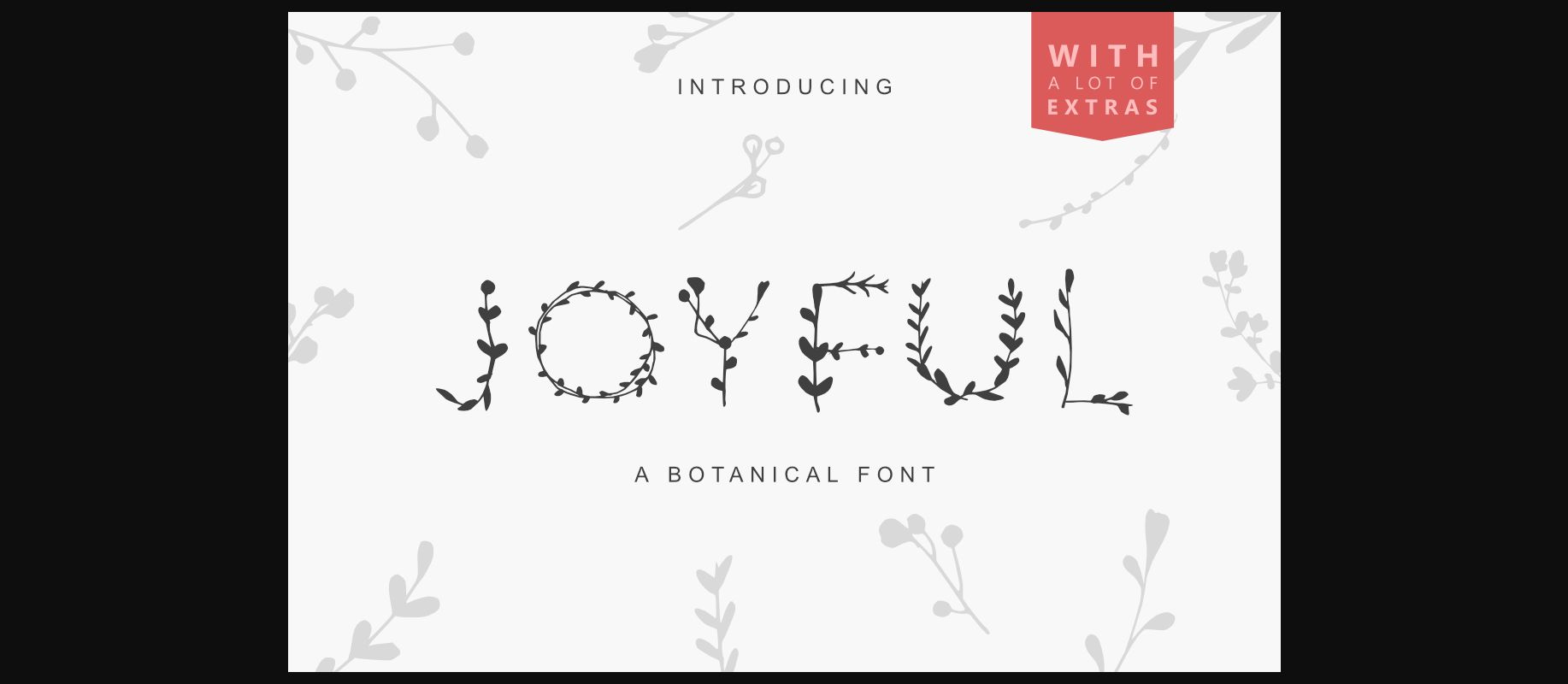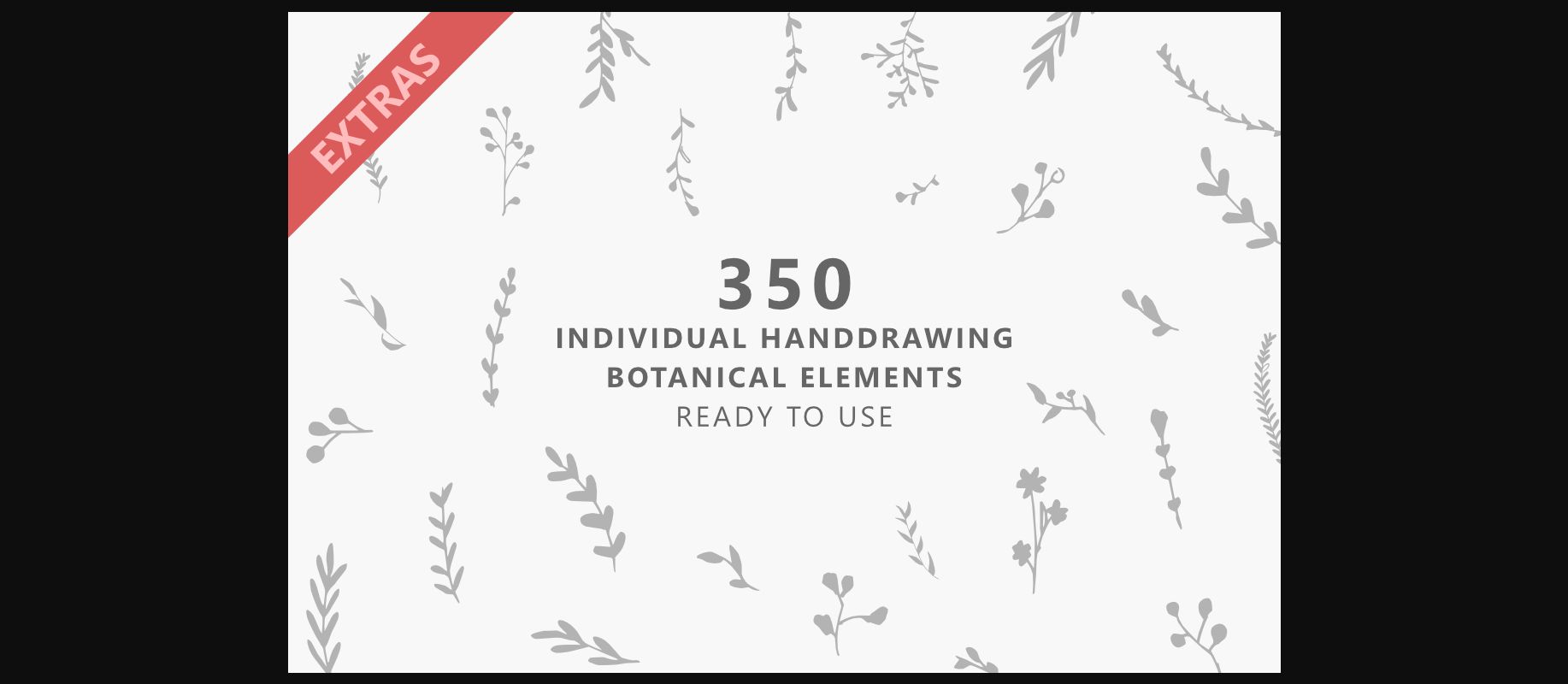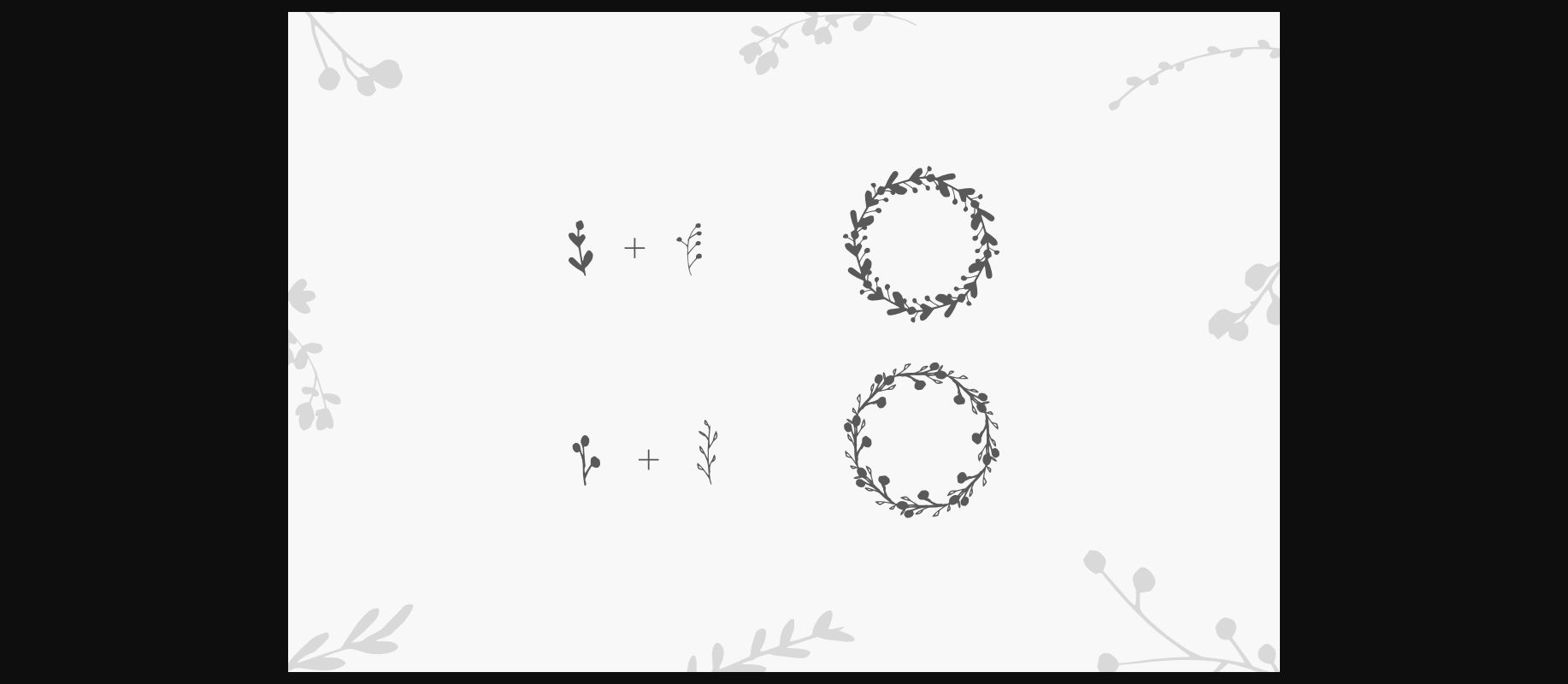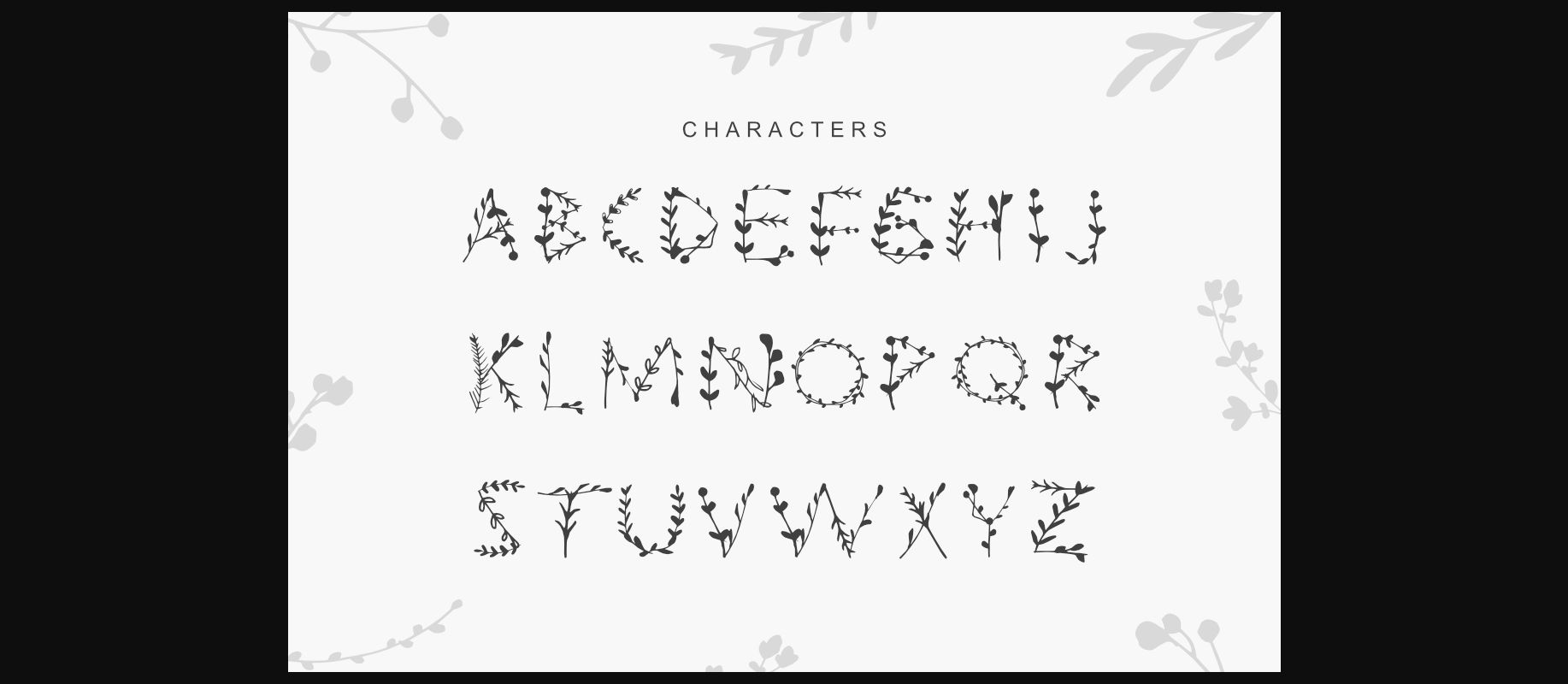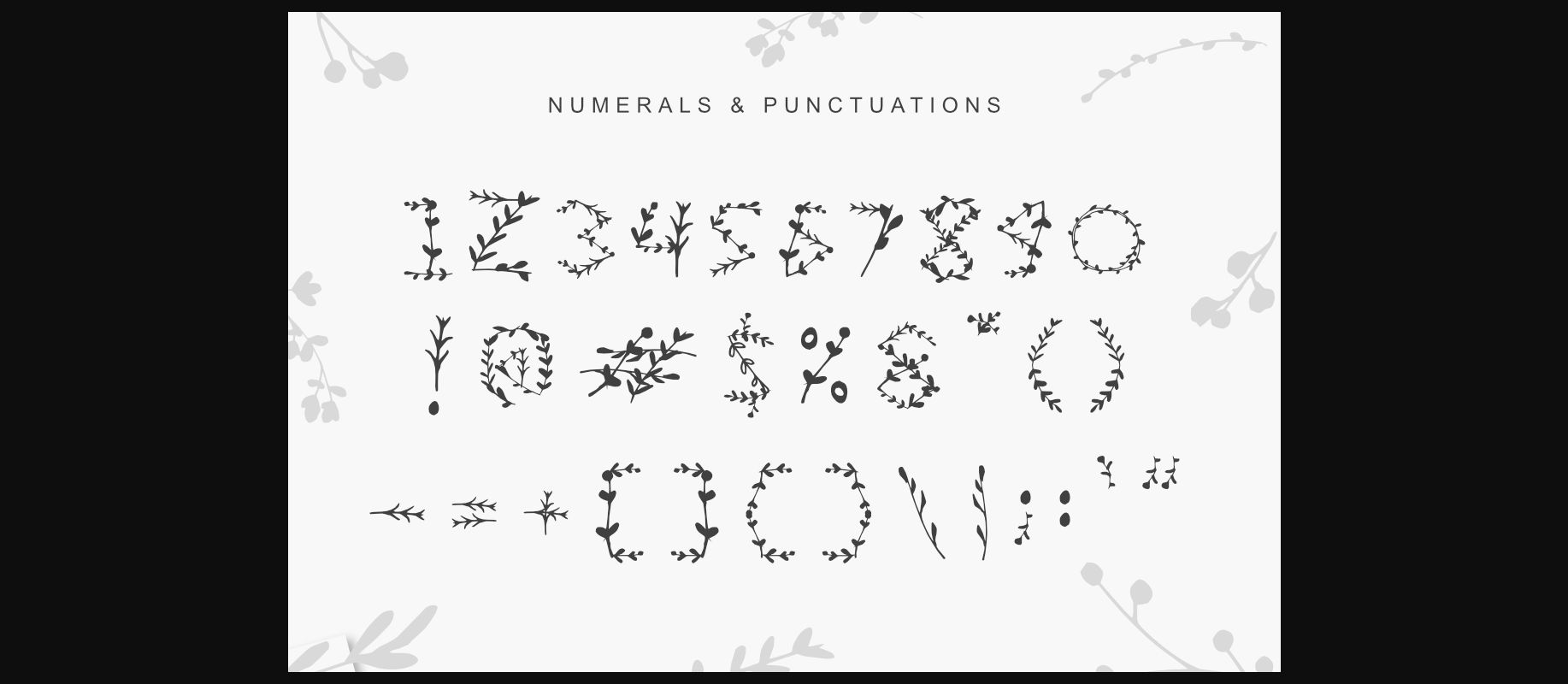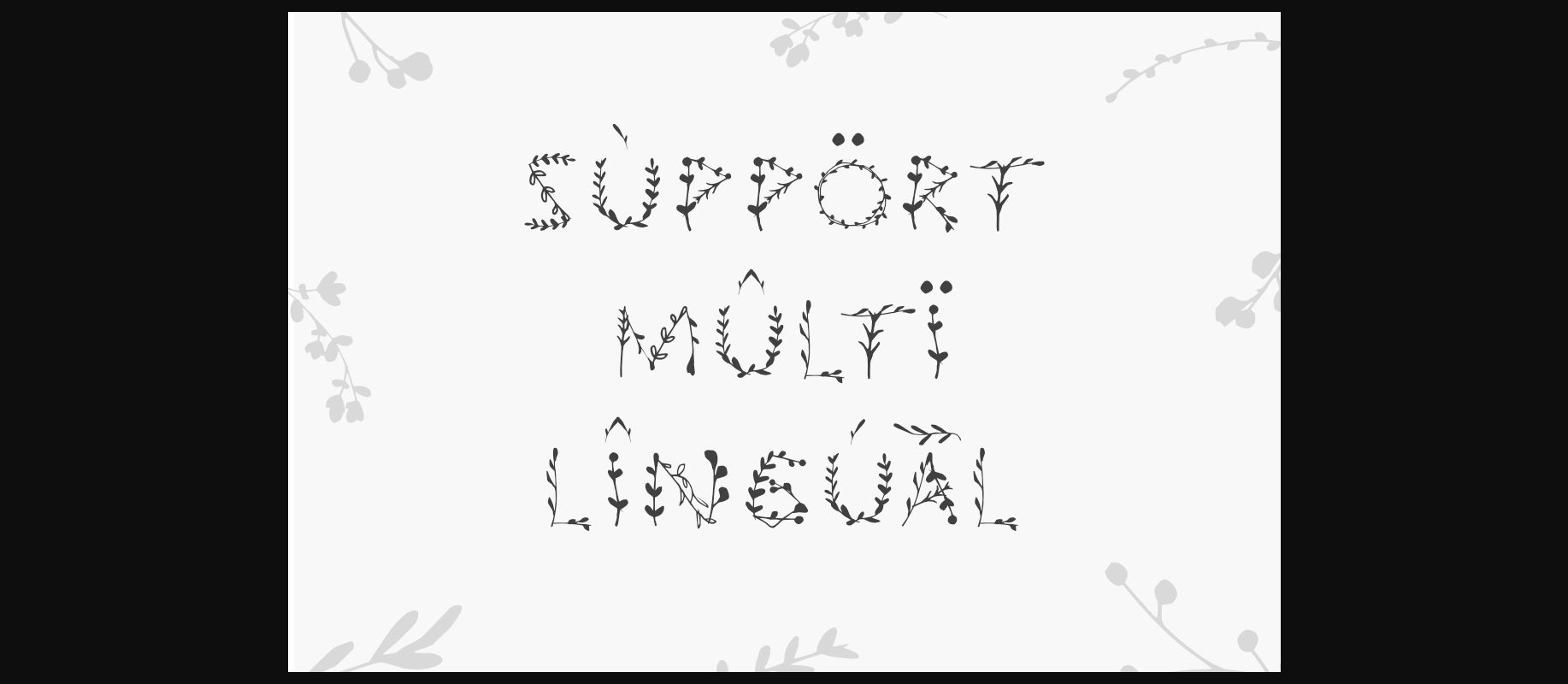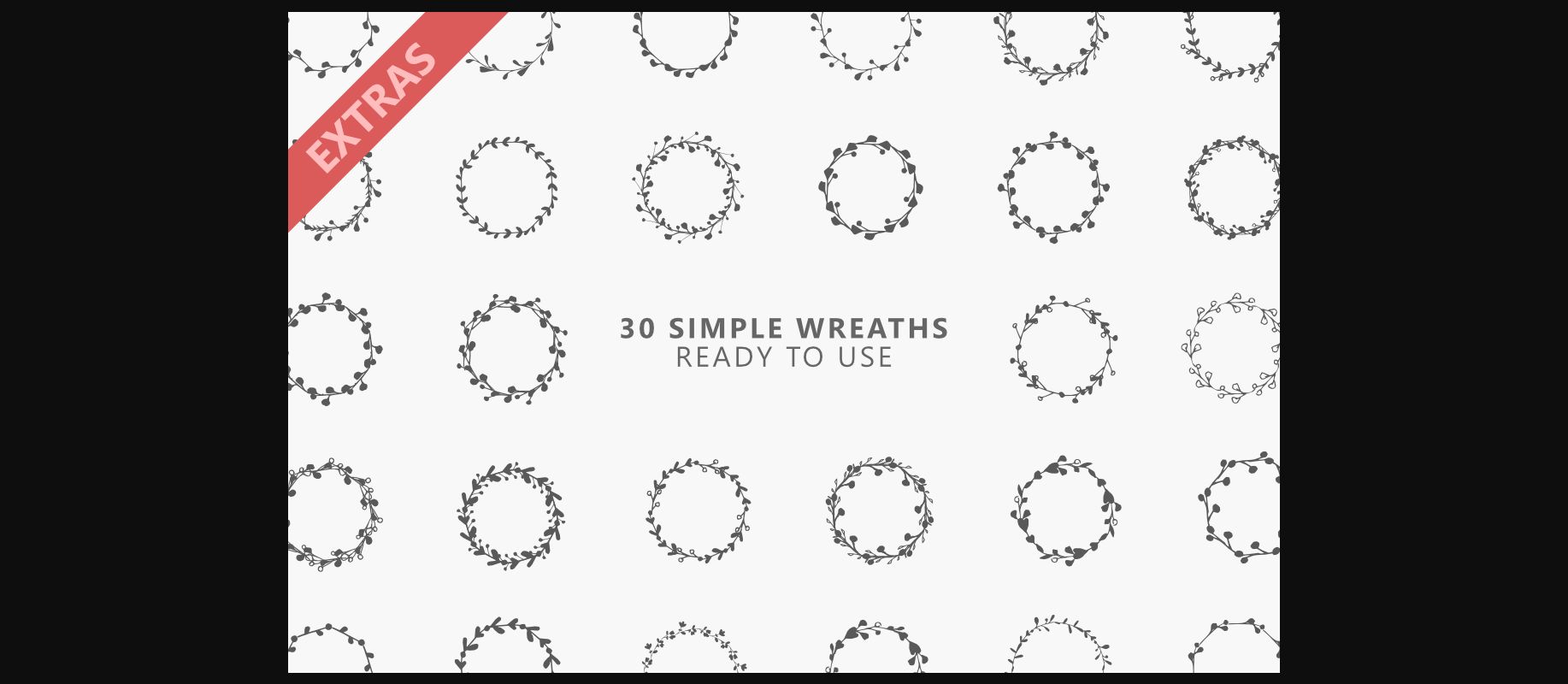
About Joyful Font
The Joyful is a decorative font which was carefully crafted by using botanical element.
It’s perfect for advertising, printing, branding, book covers, and much more!
This product is also including some great following extras: